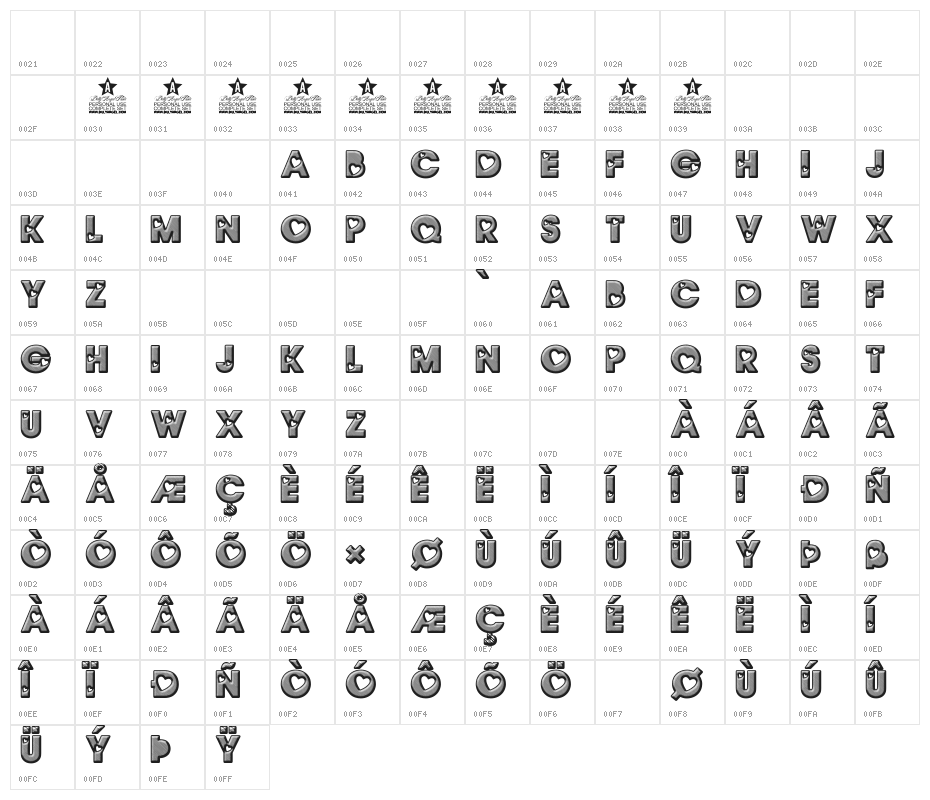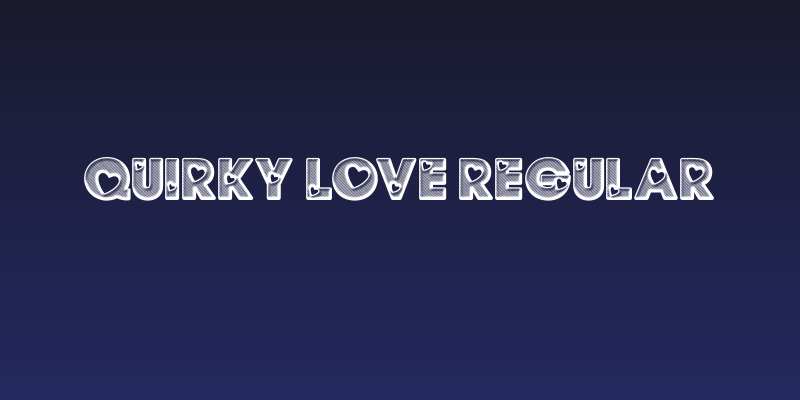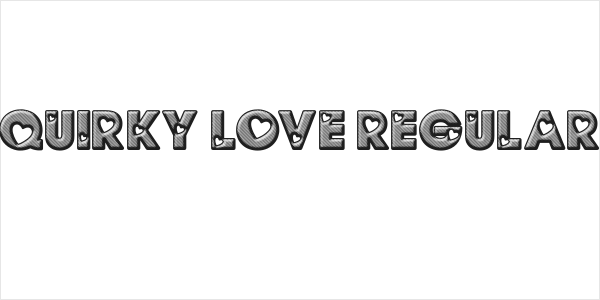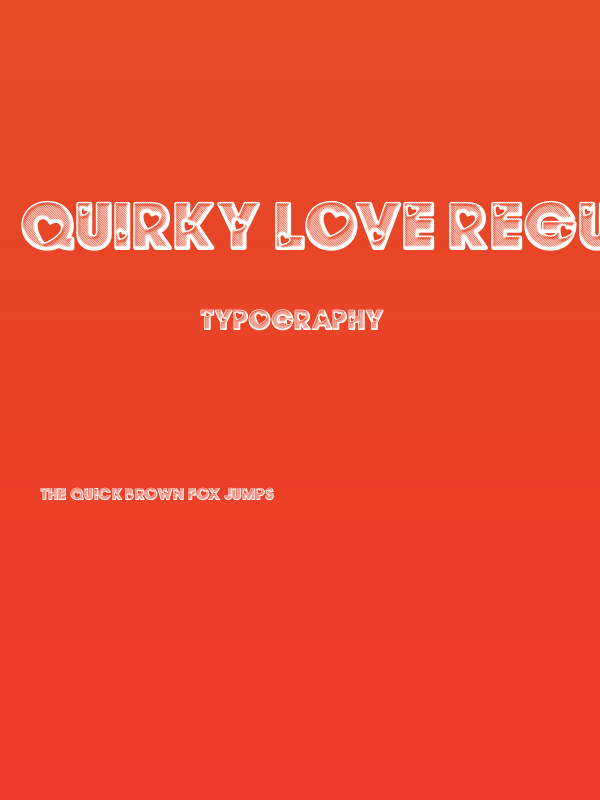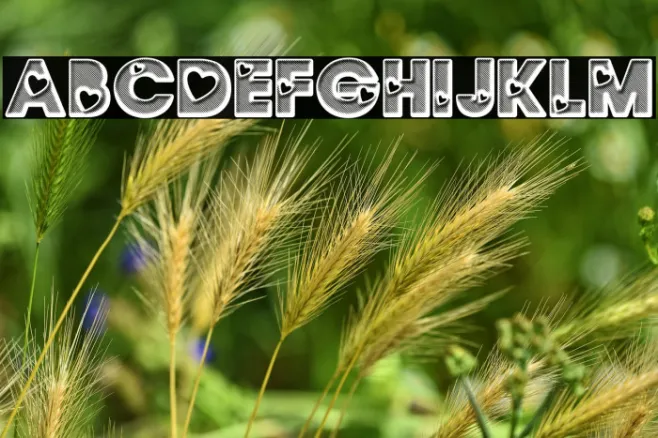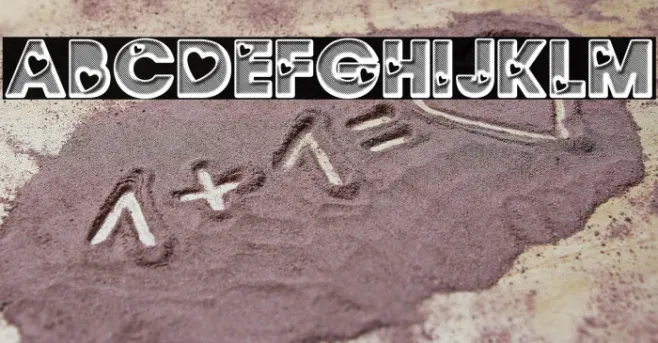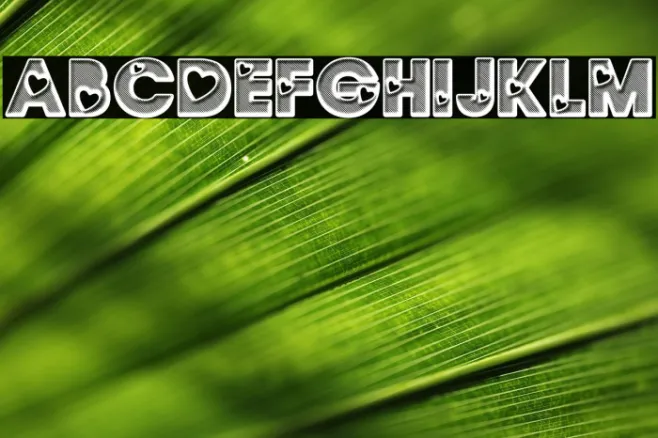
QUIRKY LOVE Regular Font
QUIRKY LOVE Regular Description
This playful and decorative font features bold, uppercase letters with a unique twist. Each character is filled with a striped pattern and adorned with heart-shaped cutouts, adding a whimsical and romantic touch. The letters are evenly spaced, ensuring readability while maintaining a fun and quirky aesthetic. This font is perfect for projects that require a lighthearted and charming style, making it ideal for invitations, greeting cards, and playful branding.
| Overall Style | Playful and Romantic |
| Use Case | Headlines, Logos, Decorative Text |
| Proposed Projects | Ideal for invitations, greeting cards, playful branding, and romantic-themed designs. |